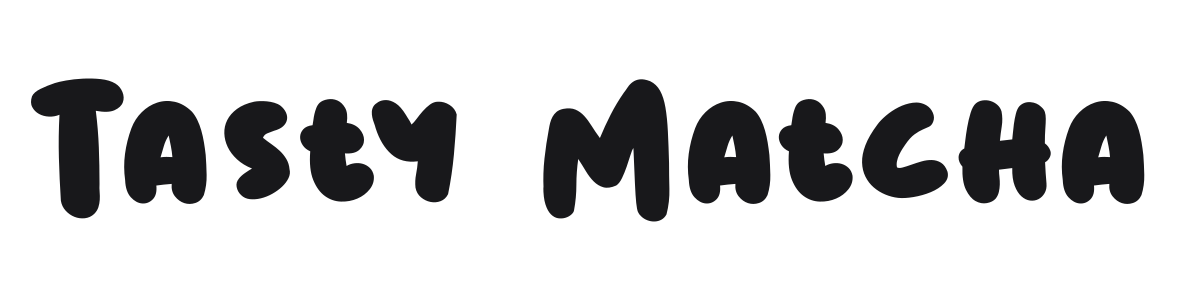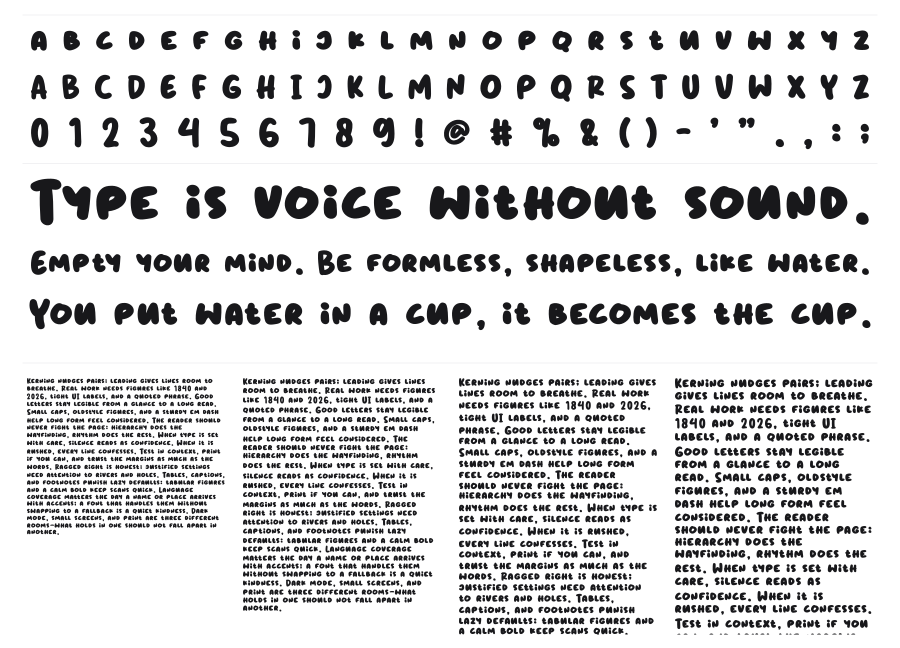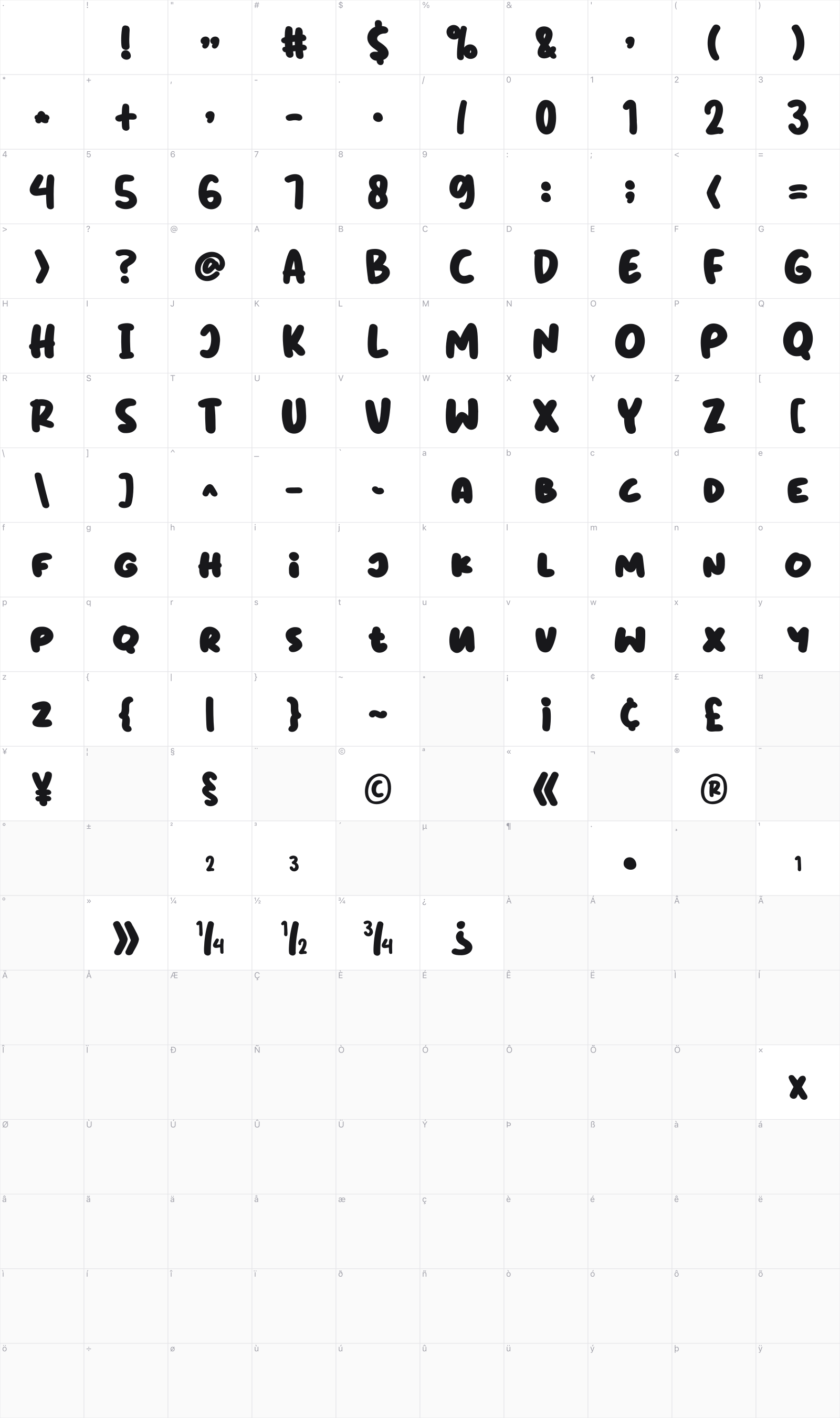
Tasty Matcha
Tasty Matcha is a bubble-style display font with ultra-bold, inflated strokes and fully rounded terminals on every character. The pillowy weight and near-zero stroke contrast give it an unmistakably cartoonish, approachable energy. It works well at large sizes for packaging, food branding, and anything that needs a pop of playful personality.